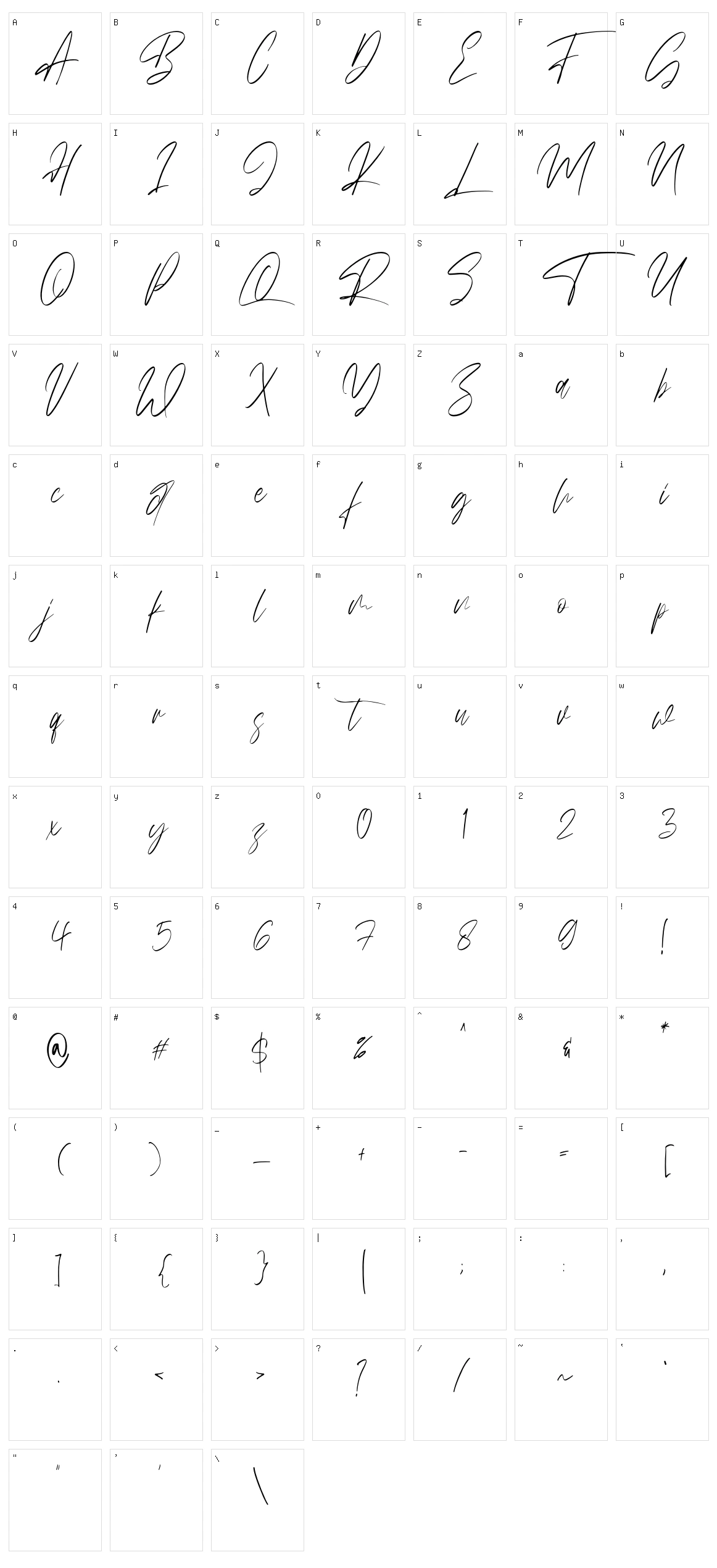
The free font Miny Fellas is carefully designed by StringLabs Creative Studio, showcasing a thoughtful balance of creativity and usability and falls under the Script font style. When you download the ZIP file, it contains only 39.04 KB of font files, making it lightweight and quick to download. Please review the license details below to understand permitted usage and distribution rights. If license information is not available, we recommend using this font for personal projects only or contacting the author directly for commercial usage permissions.